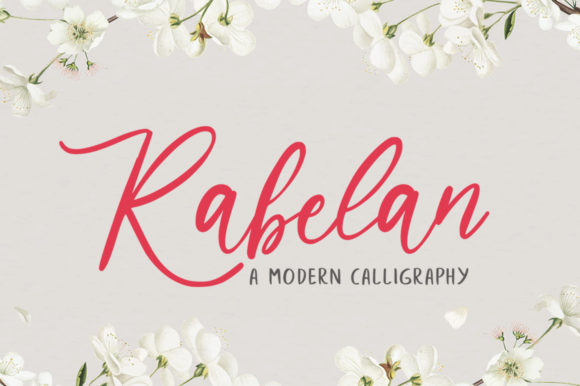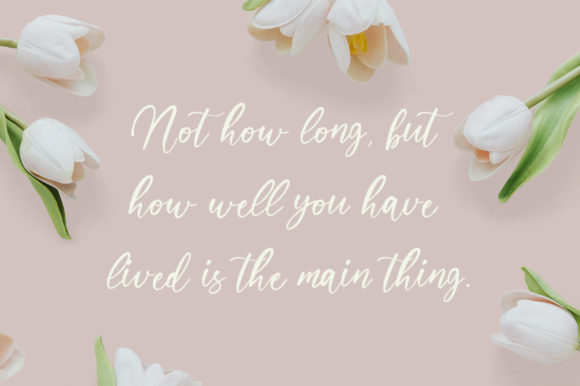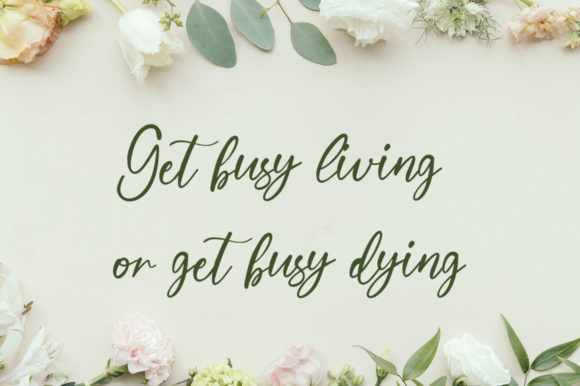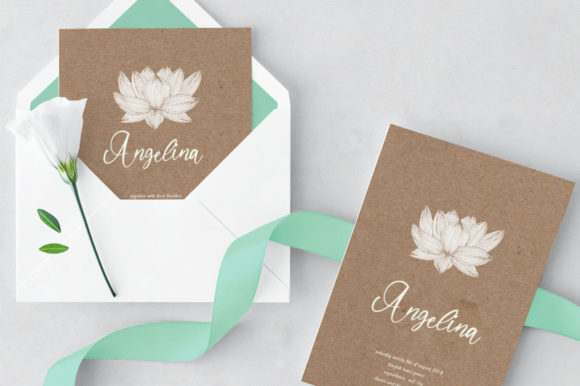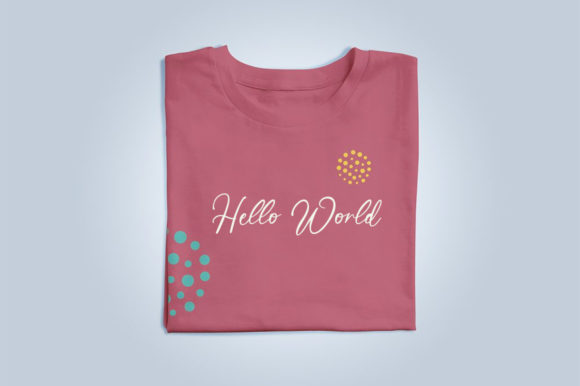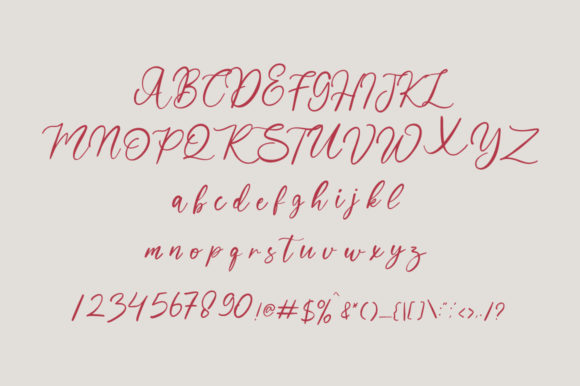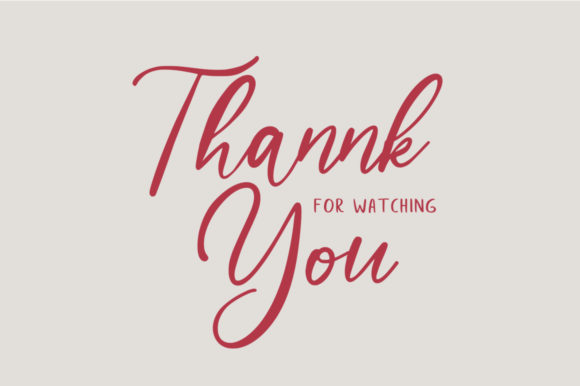
Rabelan Font
About Rabelan Font
Rabelan is a beautiful handwritten font. This is an exquisite combination of timeless elegance and authentic calligraphy. It features fancy alternates and ligatures. It will elevate a wide range of design projects to the highest level, be it branding, headings, wedding designs, invitations, signatures, logos, labels, and much more!